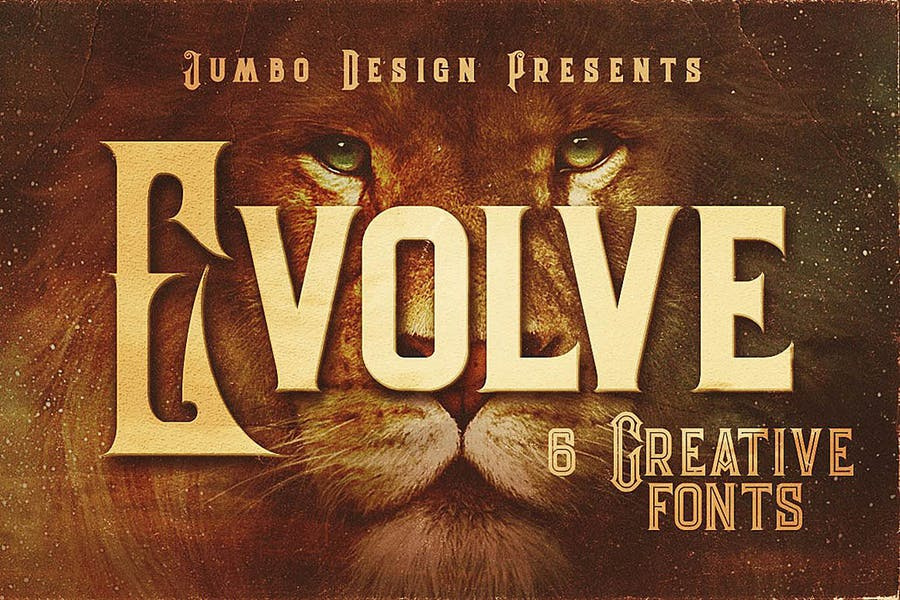
Evolve - Vintage Style Font
Evolve Vintage Style Font is perfect for heritage brand evolution, traditional company modernization, vintage transformation marketing, progressive heritage businesses, adaptive vintage design, evolutionary brand communications, timeless innovation campaigns, and transitional legacy presentations.
What makes Evolve Vintage Style Font exciting is its progressive heritage that embodies continuous improvement and adaptive tradition with evolutionary sophistication and transformative authenticity. The font features transitional letterforms with adaptive proportions and progressive character that evoke gradual change, organic growth, and the thoughtful evolution of traditional values with modern innovation and heritage adaptation. Its distinctive evolutionary styling and progressive appeal communicate growth, adaptation, and thoughtful change, making every message feel guided by evolutionary wisdom and touched by the progressive beauty of adaptive heritage and transformative tradition.
The Evolve Vintage Style Font family includes regular weight with uppercase and lowercase letters, numerals, punctuation marks, and special characters. Premium versions often feature evolutionary alternates and adaptive elements that enhance the progressive, heritage aesthetic perfect for transformational and vintage applications.
This transformative heritage typeface brings instant authenticity and progressive credibility to any evolution-focused project. Evolve Vintage Style Font Free Download offers exceptional value for heritage businesses and progressive organizations seeking to communicate adaptive tradition, evolutionary excellence, and thoughtful transformation to forward-thinking audiences and heritage appreciators.
The adaptive character of Evolve Vintage Style Font makes it particularly valuable for family businesses undergoing modernization, heritage brands embracing change, and traditional companies adopting innovation. Its excellent readability ensures transformation messaging and evolutionary communications remain clear while maintaining the distinctive heritage aesthetic that appeals to audiences seeking progressive tradition and adaptive excellence.
Progressive heritage marketers appreciate how Evolve Vintage Style Font effortlessly conveys evolutionary authenticity and adaptive wisdom. The font's transitional proportions and progressive details create trustworthy brand materials that establish connections with audiences who value thoughtful change, heritage adaptation, and the evolutionary beauty of progressive tradition and transformative heritage.
The versatile evolution of this typeface extends to organizational development, heritage preservation with innovation, and adaptive education where evolutionary authenticity enhances progressive credibility and transformational appeal. Evolve Vintage Style Font Free Download provides creative professionals with an essential tool for developing memorable, evolution-driven designs that resonate with audiences who embrace progressive heritage, adaptive tradition, and the thoughtful beauty of evolutionary change in their business and cultural experiences.